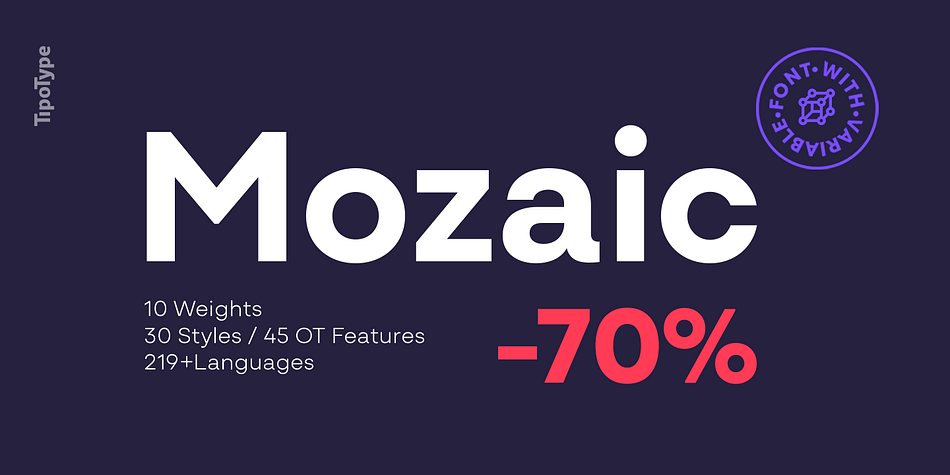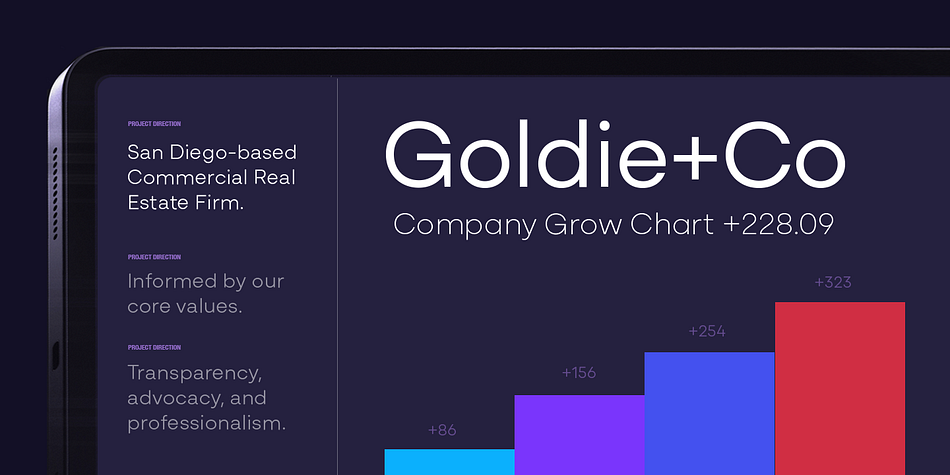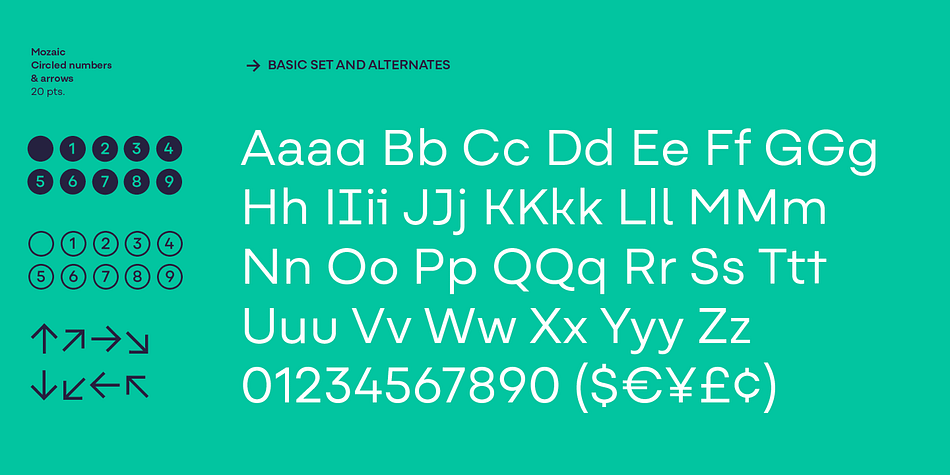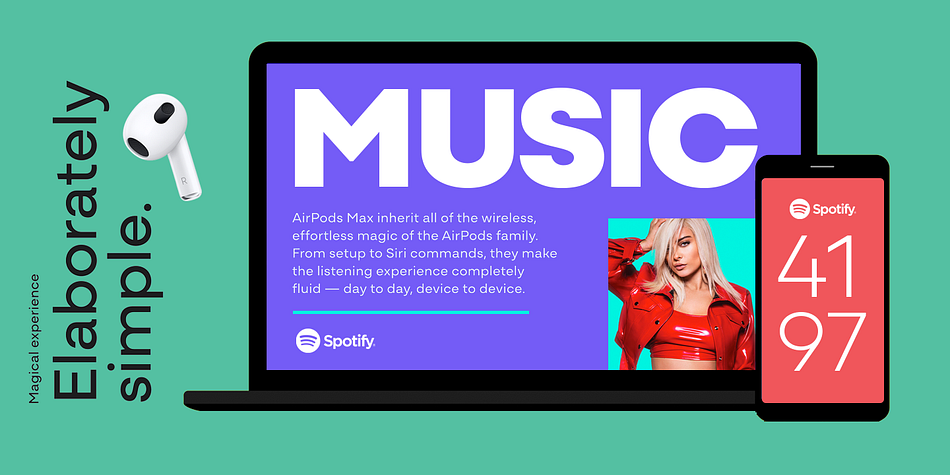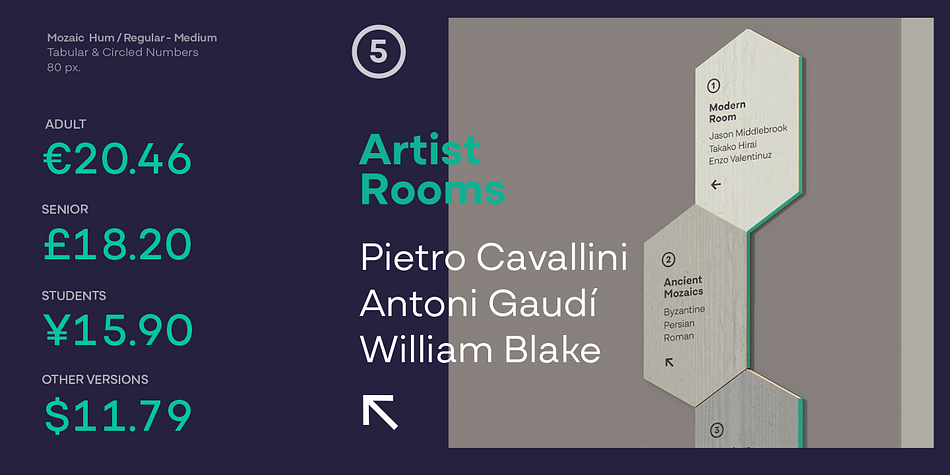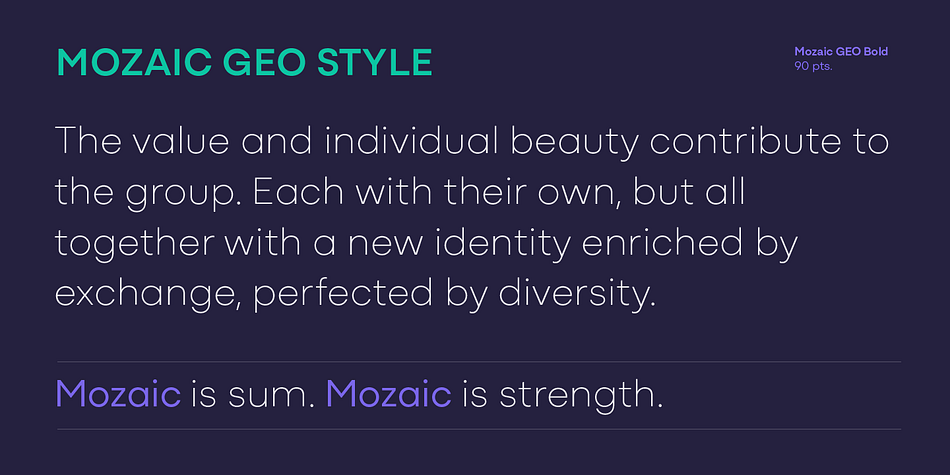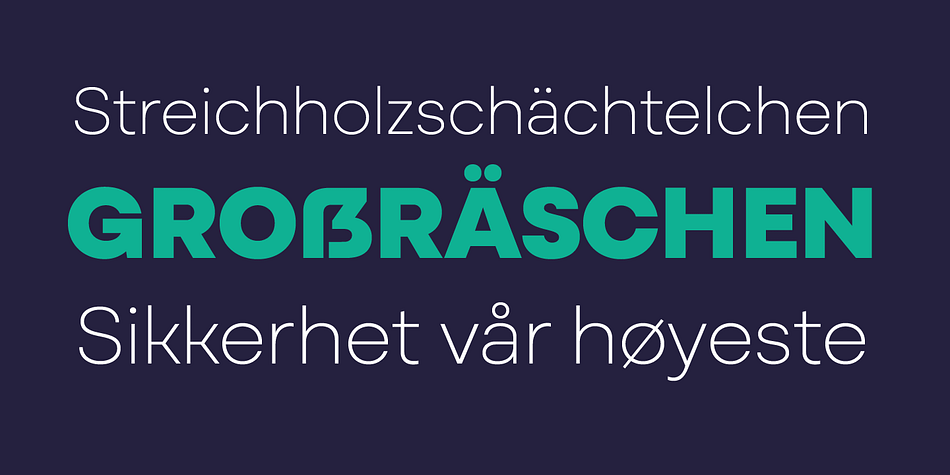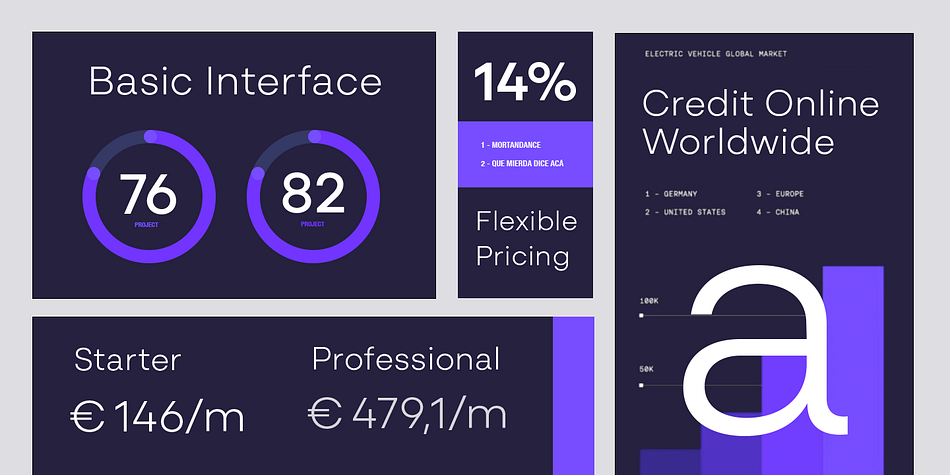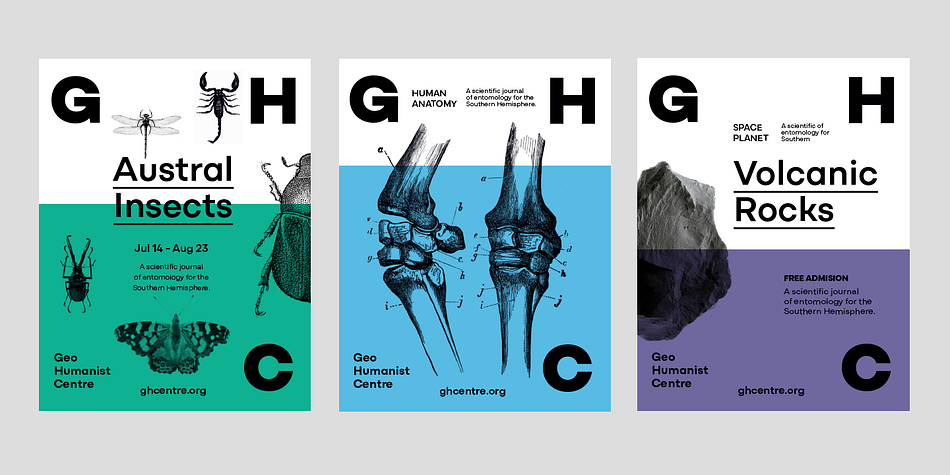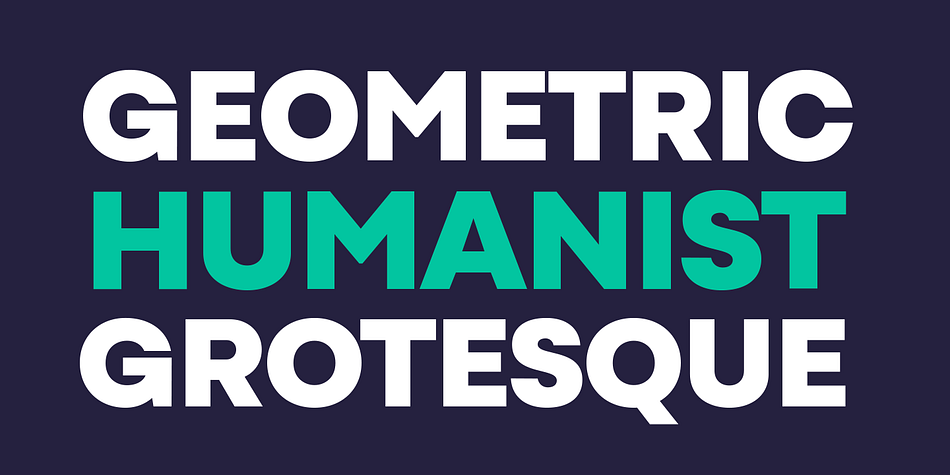
Mozaic
Mozaic is a sans serif font family. This typeface has thirty styles and was published by TipoType.
The value and individual beauty contribute to the group. Each with their own, but all together with a new identity enriched by exchange, perfected by diversity. Mozaic is sum. Mozaic is strength. It includes a very thorough coverage for a wide variety of Latin alphabet-based language families.